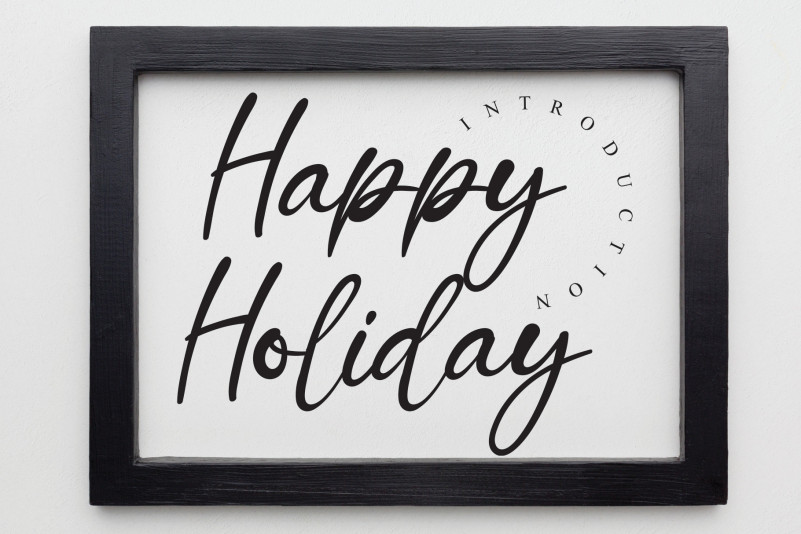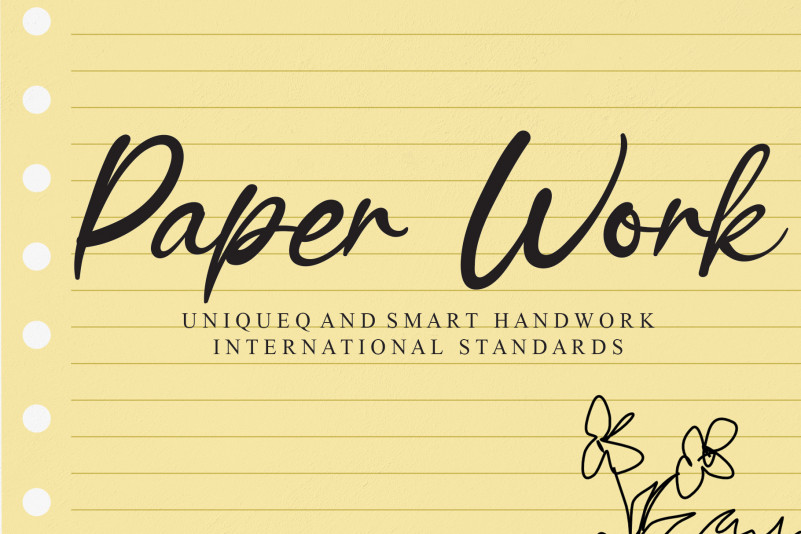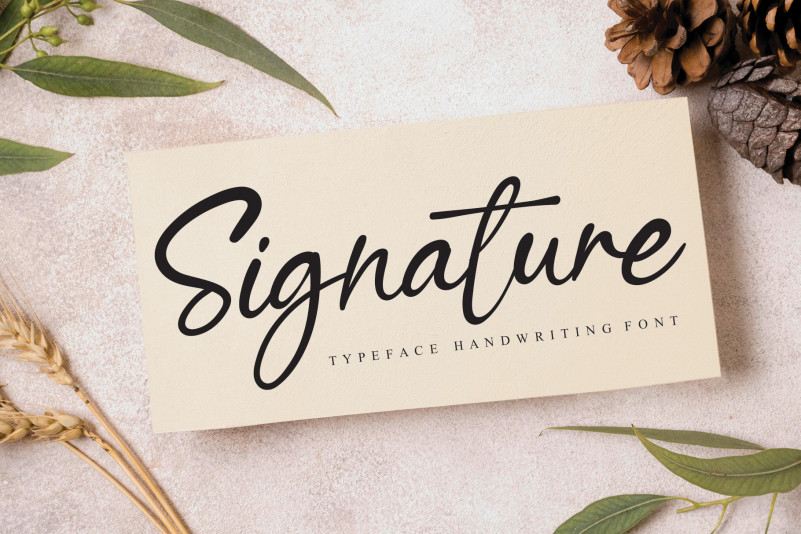
Bright Cheerful Script Font
Bright Cheerful Script Font is a fun and trendy handwritten font, defined by a sweet flow. It is suitable for any branding, product packaging, invitation, quote, t-shirt, label, poster, logo that you wish to develop.